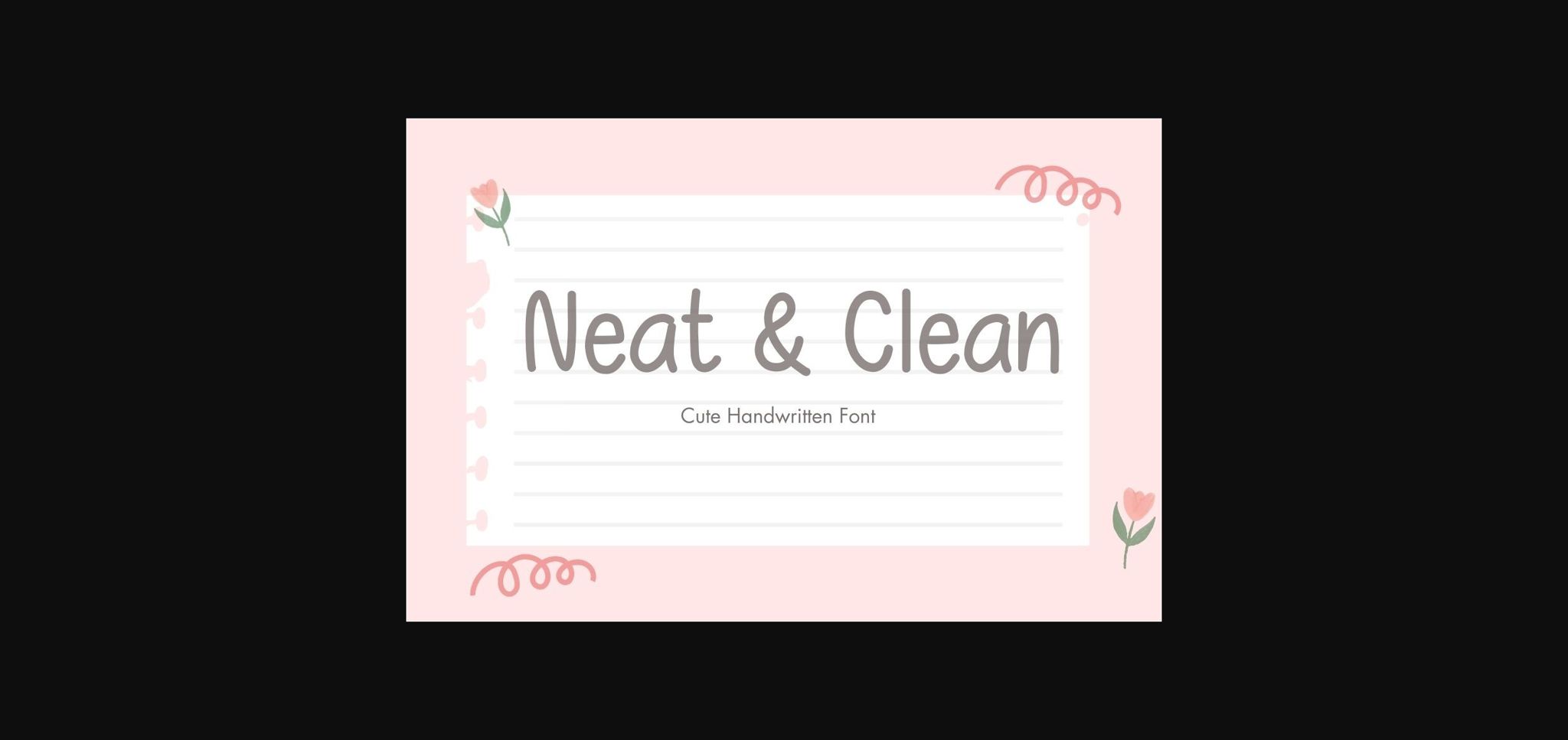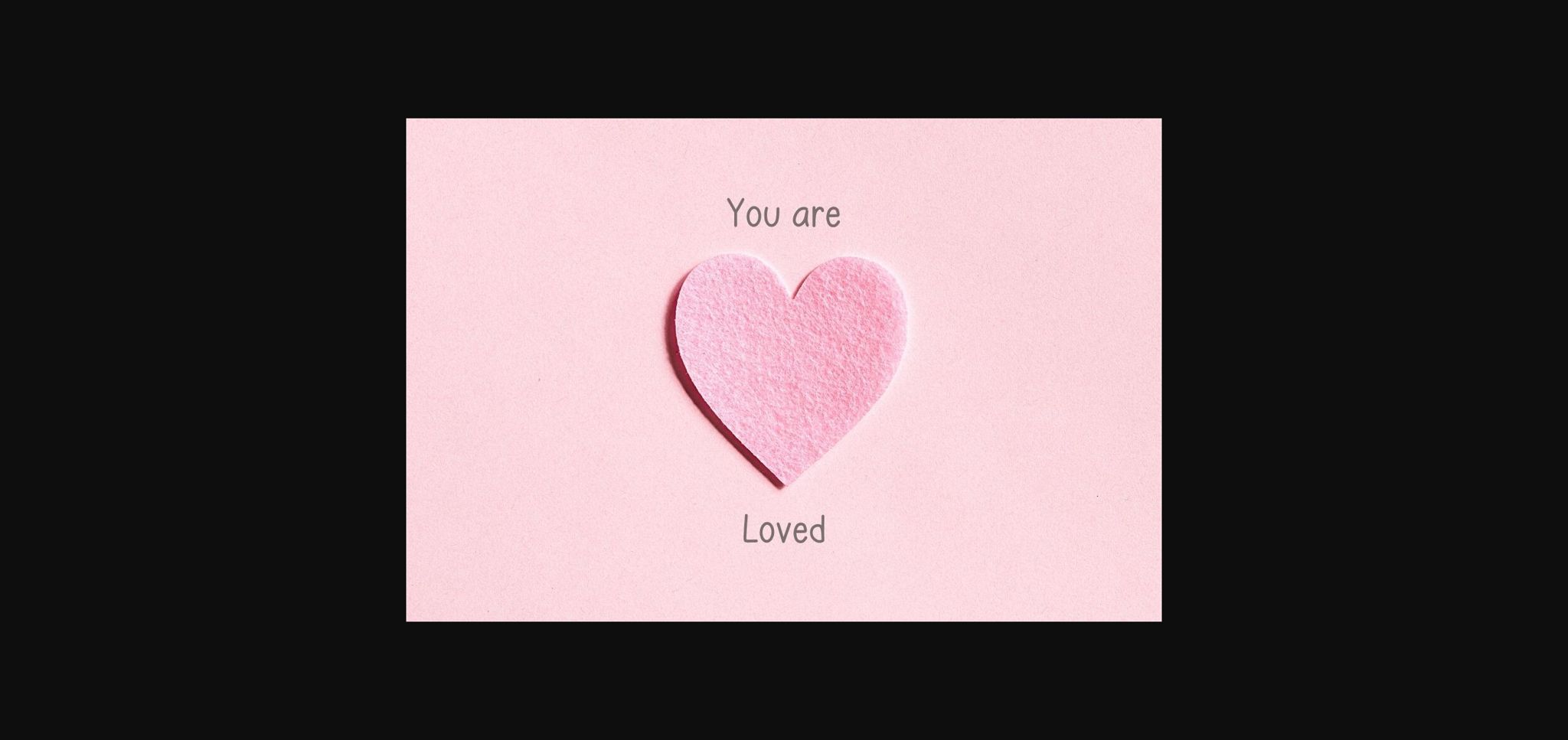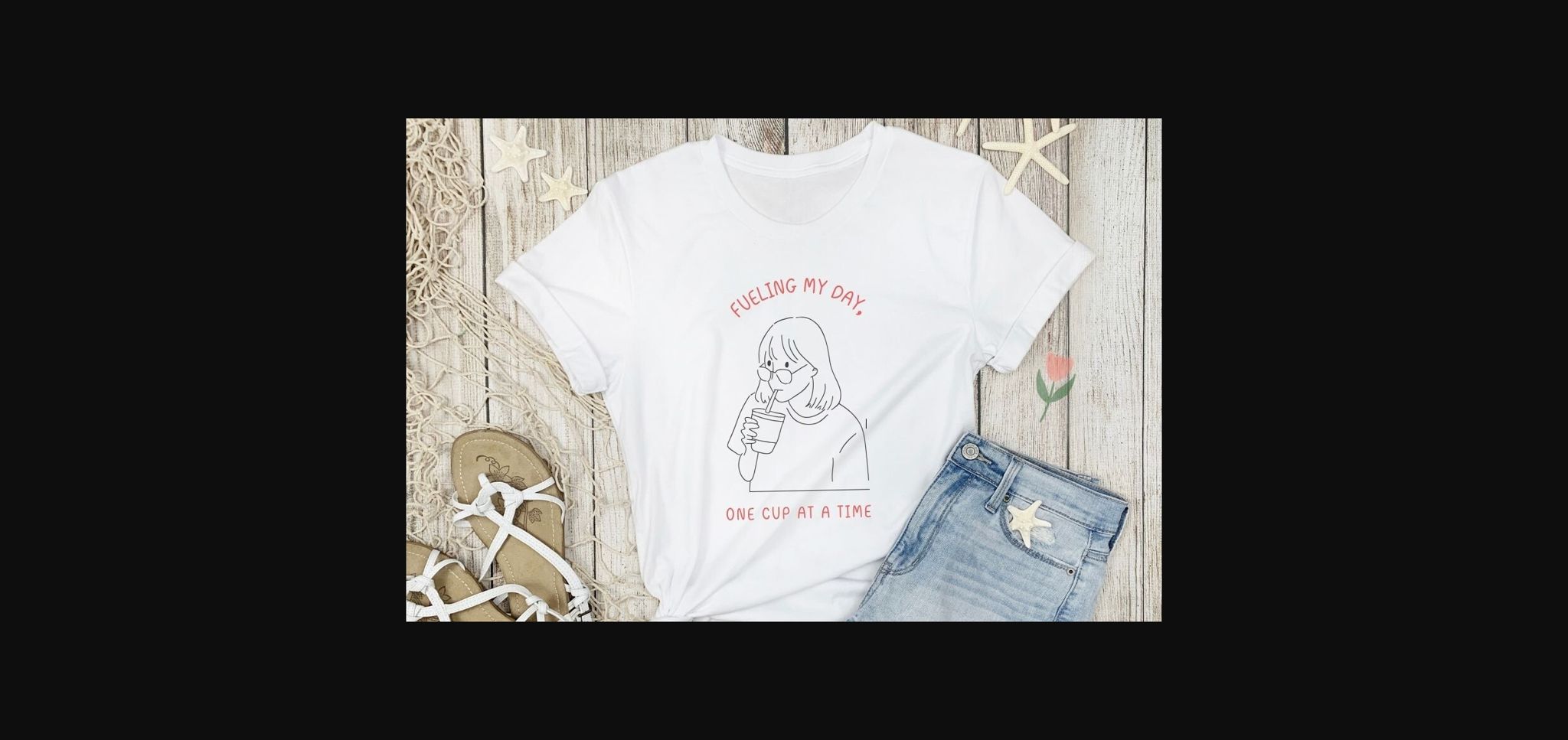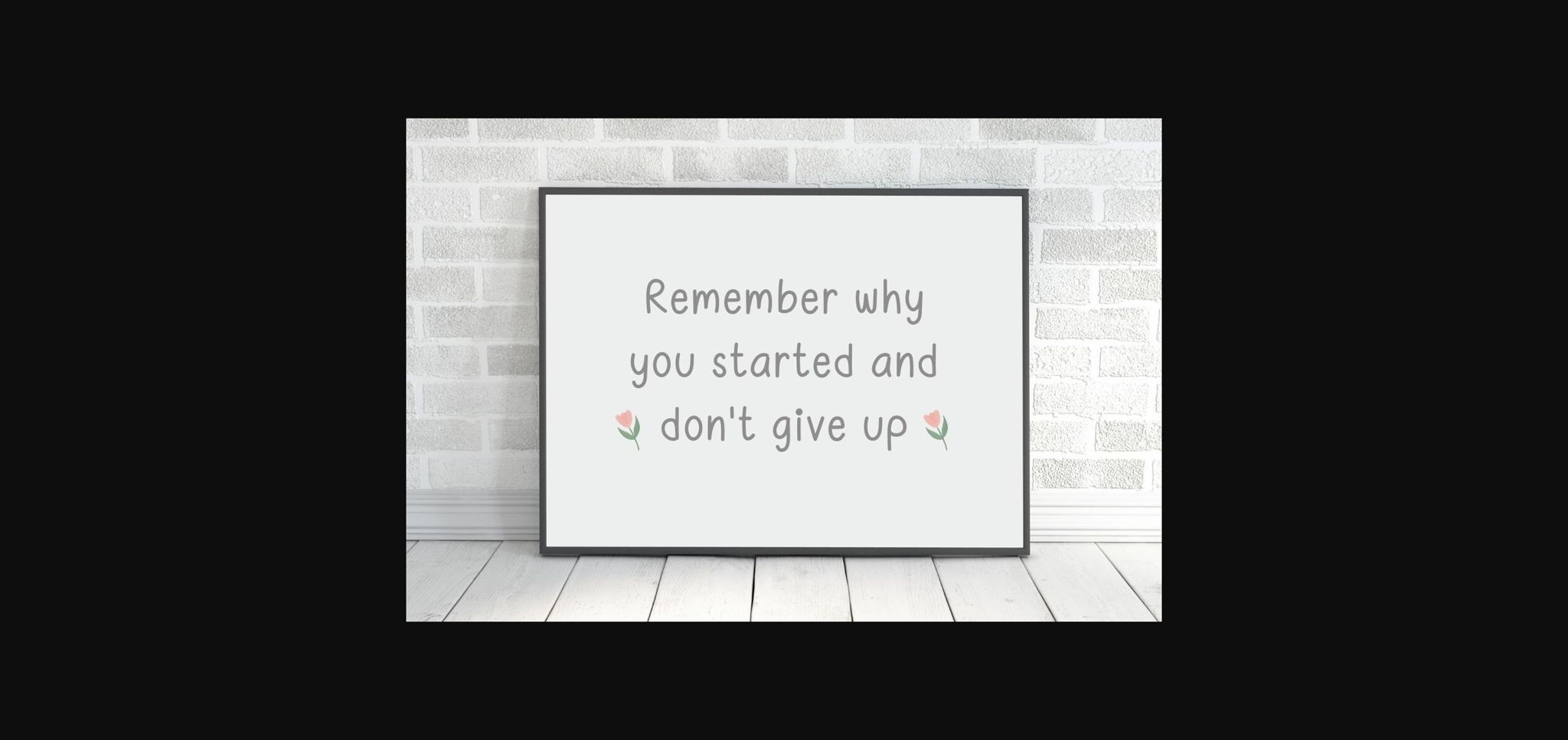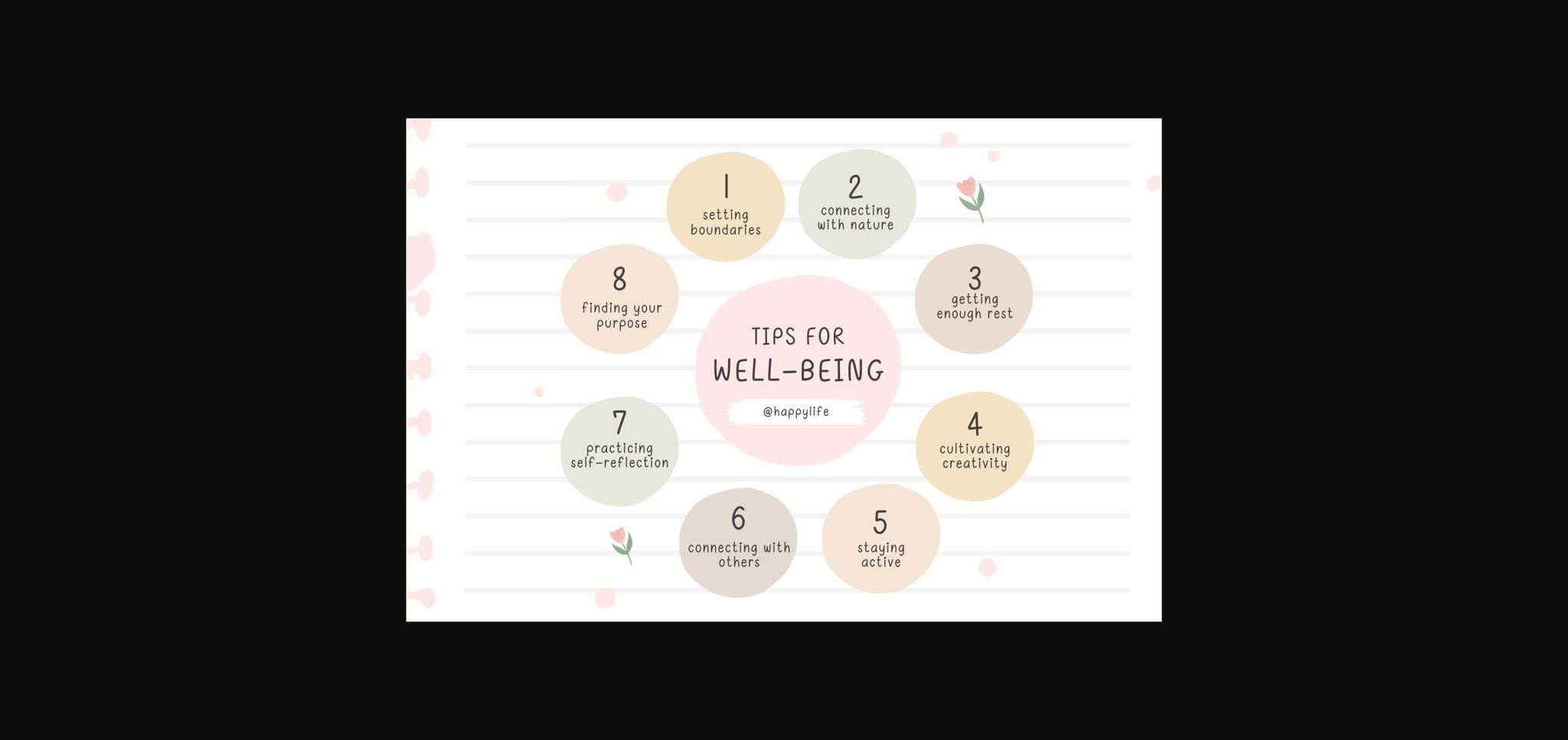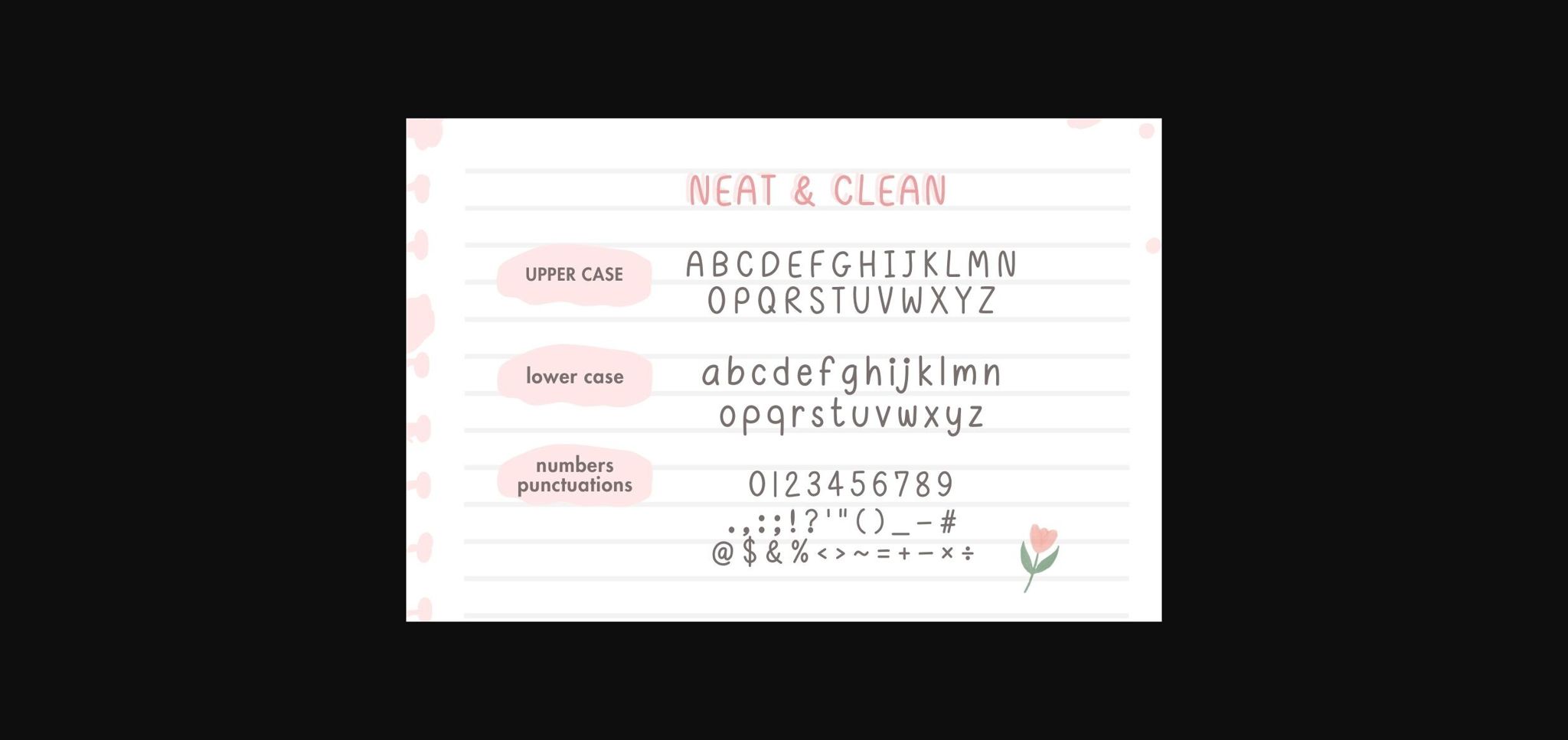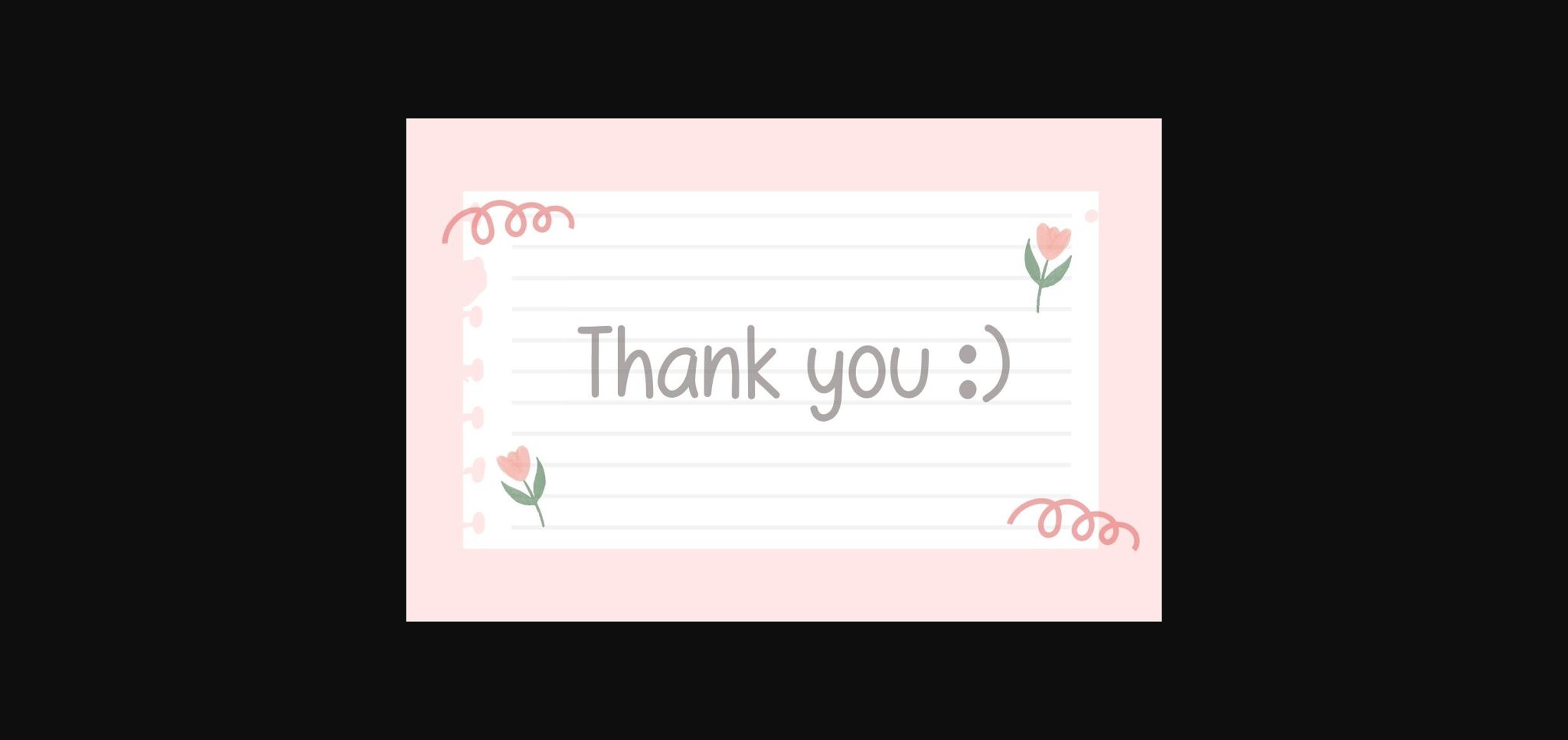
Neat and Clean Font
About Neat and Clean Font
Neat and Clean is a cute and sweet handwritten font. This font is a harmonious marriage of neat lines and clean curves, making it ideal for a wide range of applications.
Whether you’re designing invitations, greeting cards, or creating social media graphics, “Neat and Clean Font” adapts seamlessly to any project, adding a touch of refinement.